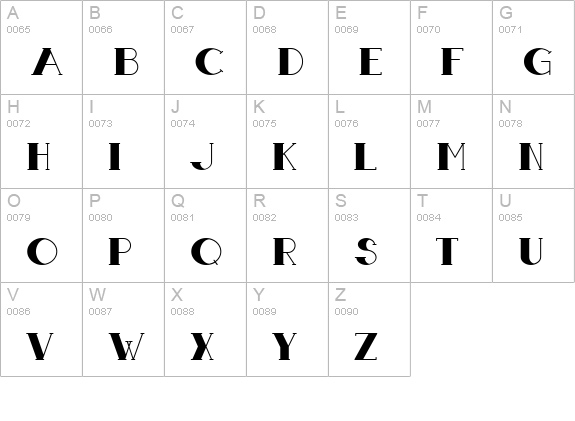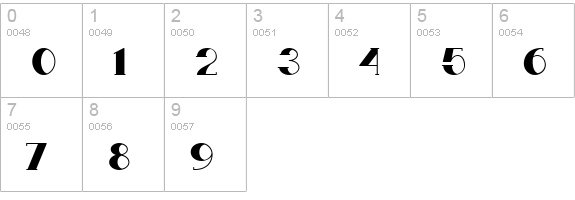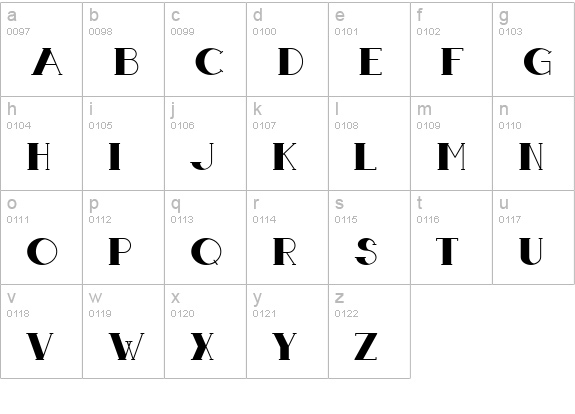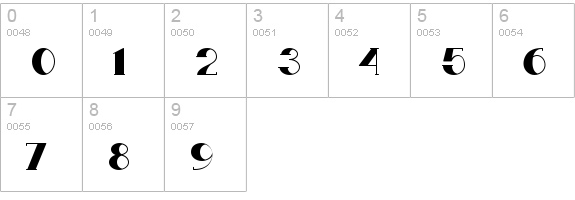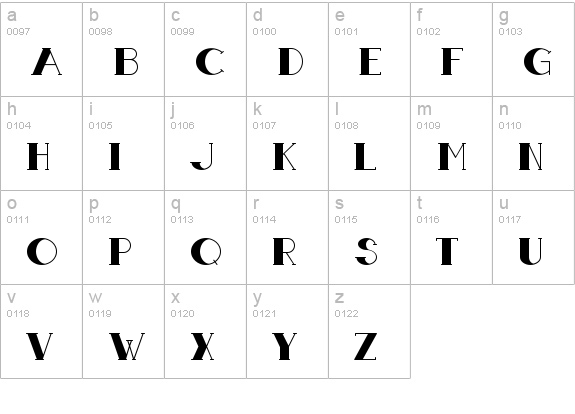
Boldatin ExtraBold Font Details
Boldatin ExtraBold is an extra-heavy, attention-grabbing variant in the Boldatin typeface family \xE2\x80\x94 well suited to high-impact headlines, posters, and bold branding.
Boldatin ExtraBold is a striking and commanding typeface that exudes confidence and strength. Its bold weight and sharp edges make it perfect for making a bold statement in headlines, titles, and branding materials. With its modern and stylish appearance, Boldatin ExtraBold is sure to grab the attention of any audience.
What sets Boldatin ExtraBold apart is not only its visual impact but also its versatility. Whether used in print or digital designs, this font adds a touch of boldness and sophistication to any project.